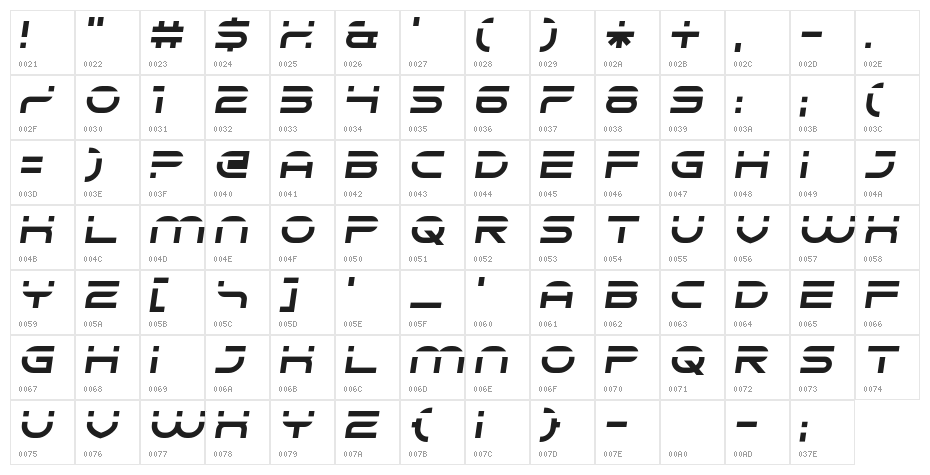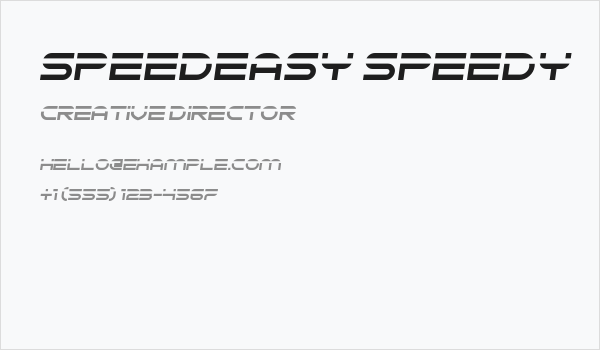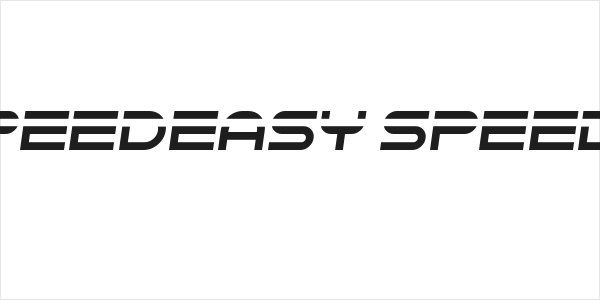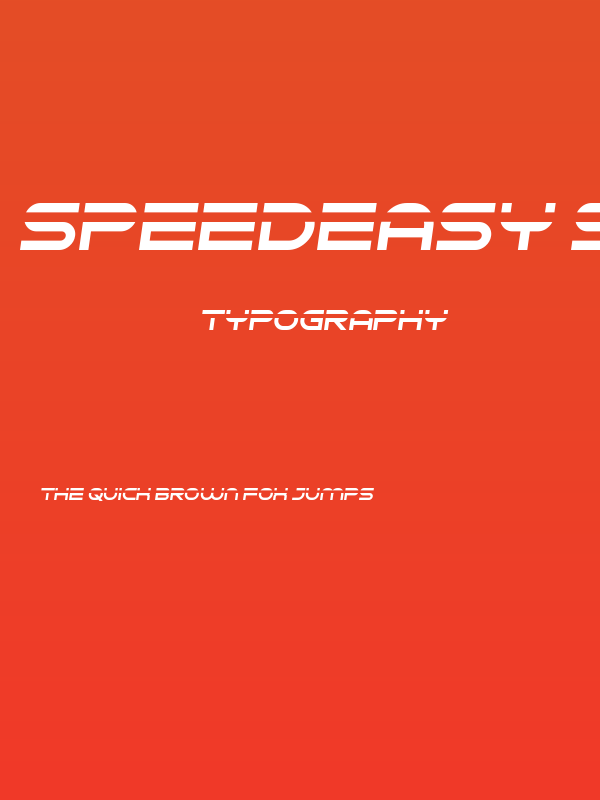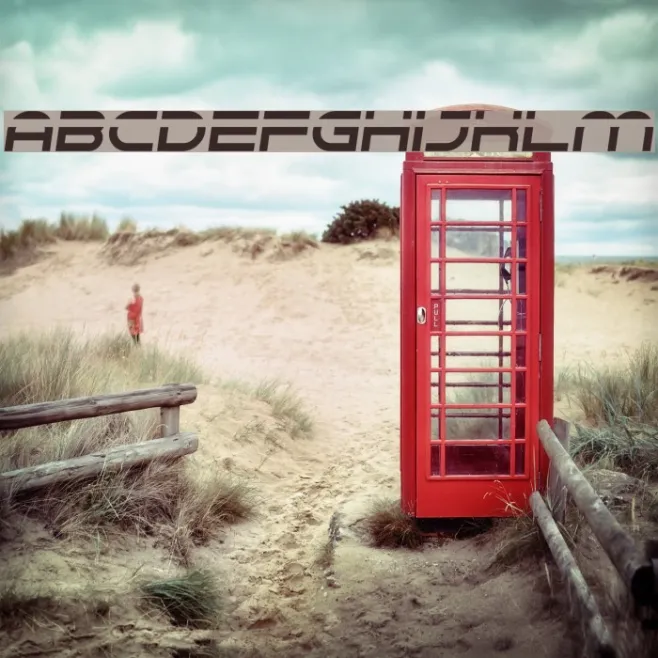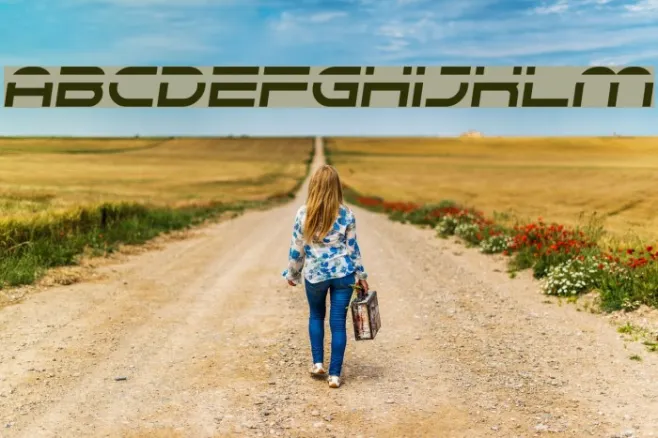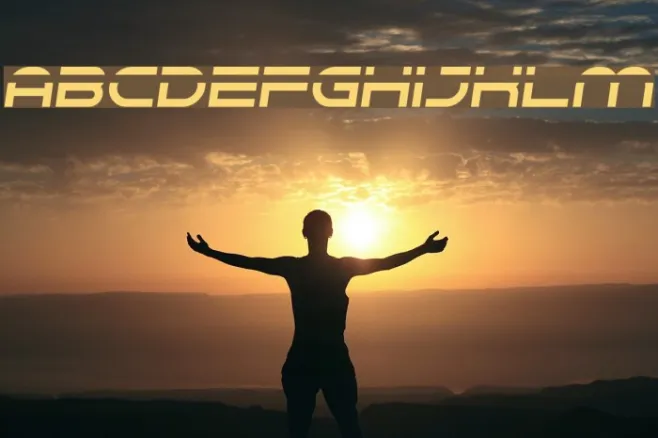
Speedeasy Speedy Font
Speedeasy Speedy Description
This font features a futuristic and dynamic design, characterized by its sharp angles and sleek lines. The letters are constructed with a sense of motion, giving an impression of speed and agility. The uppercase and lowercase letters maintain a consistent style, with a unique cut-out effect that adds to the modern aesthetic. The numerals and special characters follow the same design principles, ensuring uniformity across all glyphs. This font's distinct style makes it ideal for projects that require a contemporary and energetic look.
| Use Case | Logos, Headlines |
| Proposed Projects | Ideal for technology branding, sports team logos, automotive advertising, and sci-fi themed projects. |